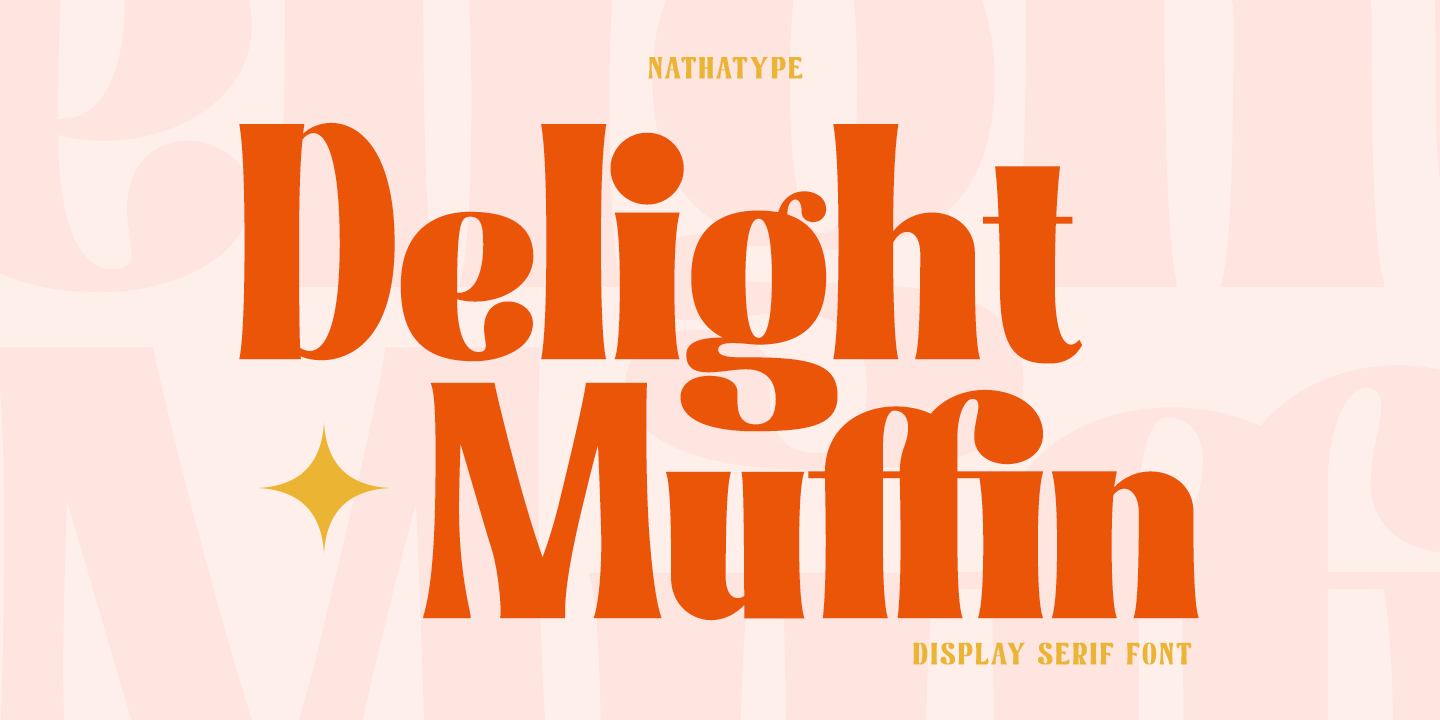
Delight Muffin Font Free Download is a playful and charming typeface designed to bring warmth and joy to your creative projects. With its rounded, friendly letterforms and bubbly personality, this font is perfect for kids’ books, fun branding, invitations, and any design that calls for a cheerful and approachable vibe.
Whether you're designing eye-catching logos, colorful posters, or engaging social media graphics, Delight Muffin Font Free Download offers excellent readability paired with a whimsical, joyful style. Its versatility makes it suitable for both digital and print applications.